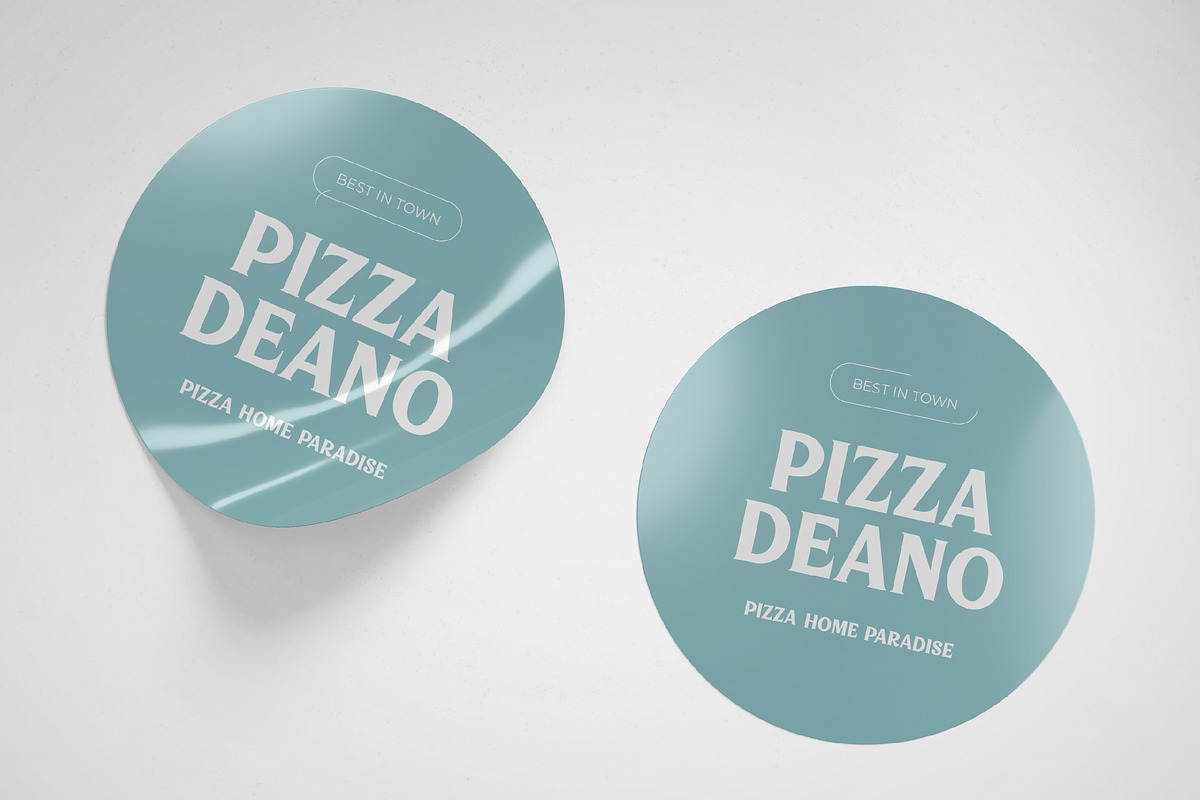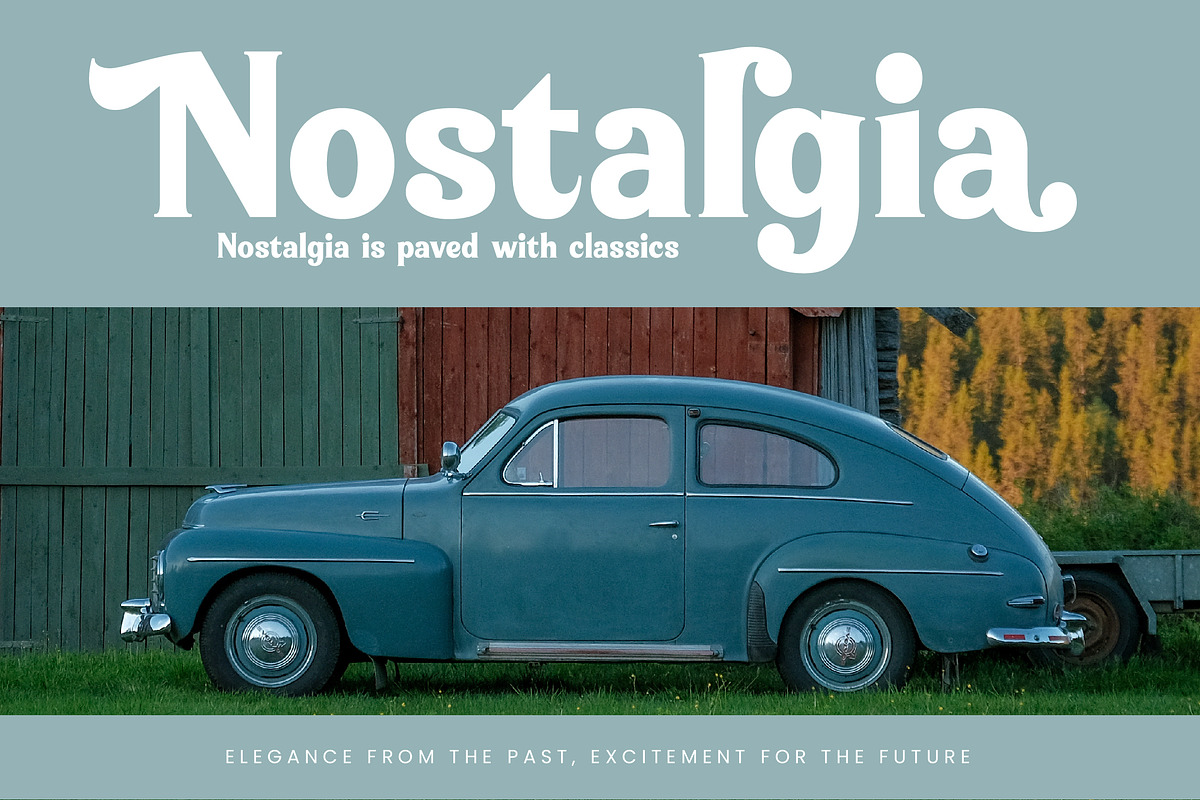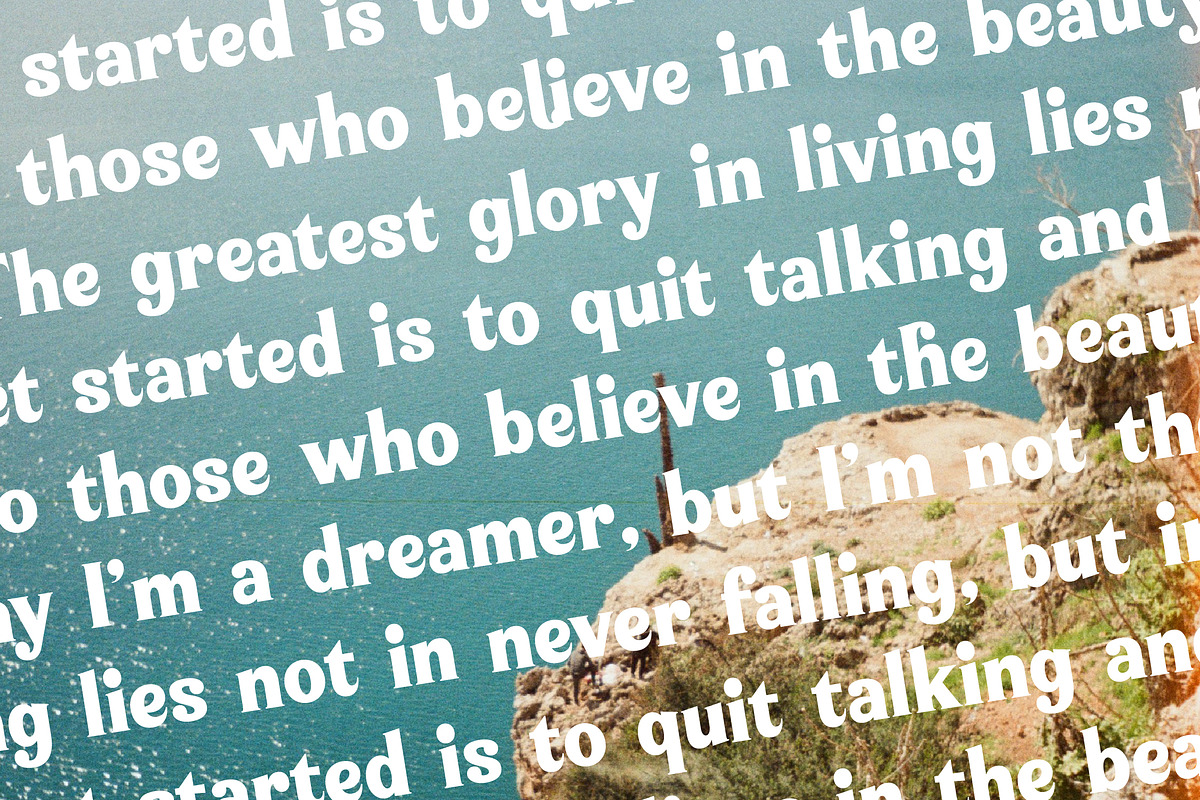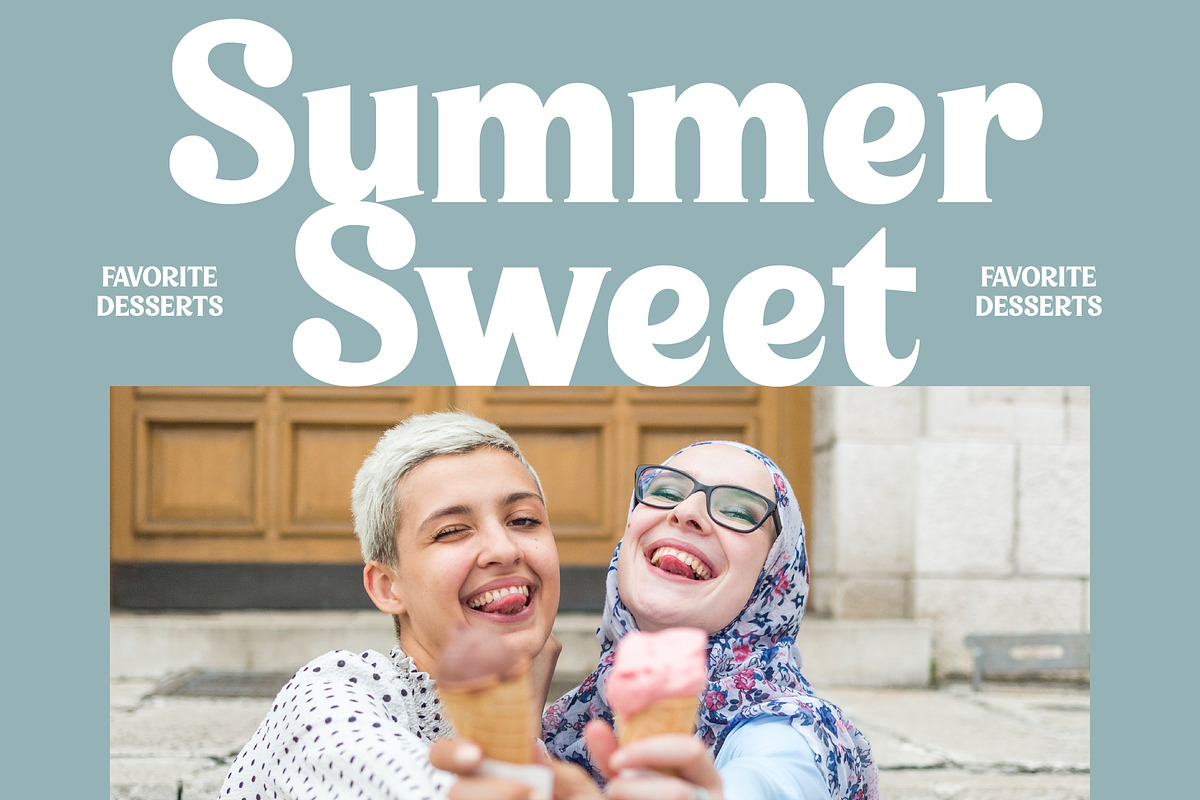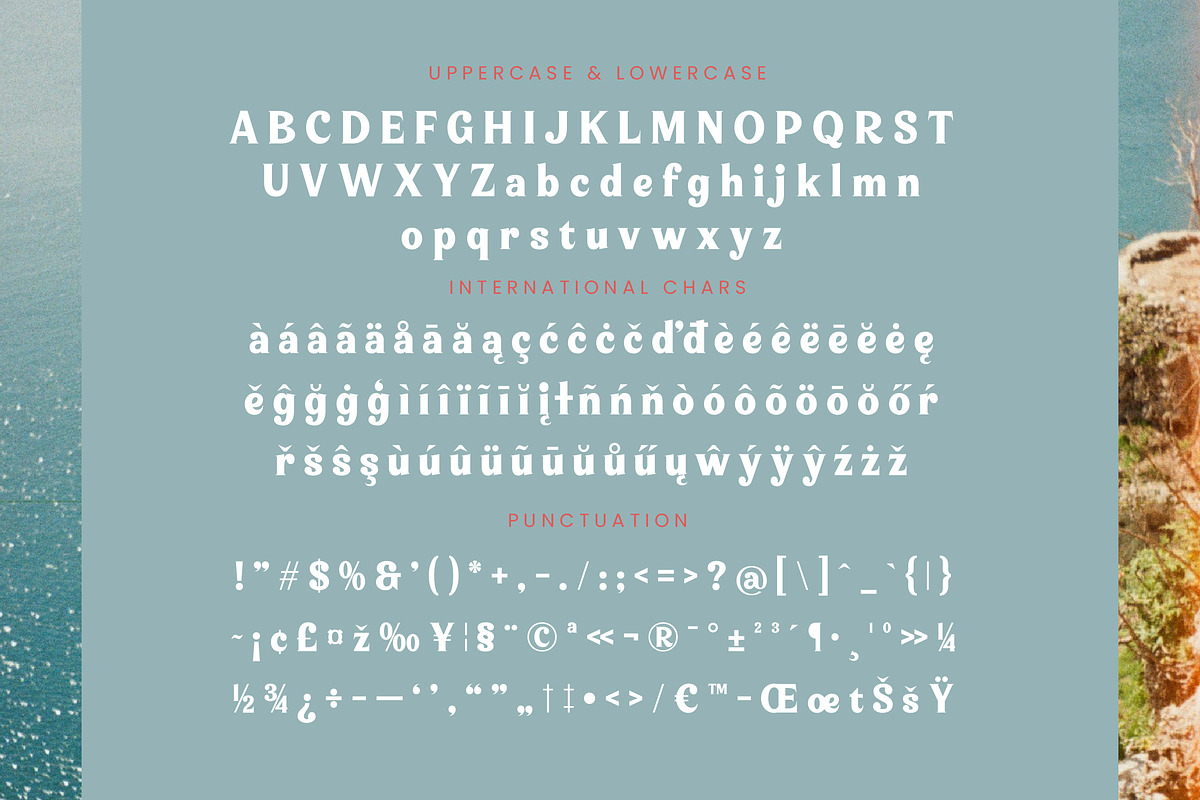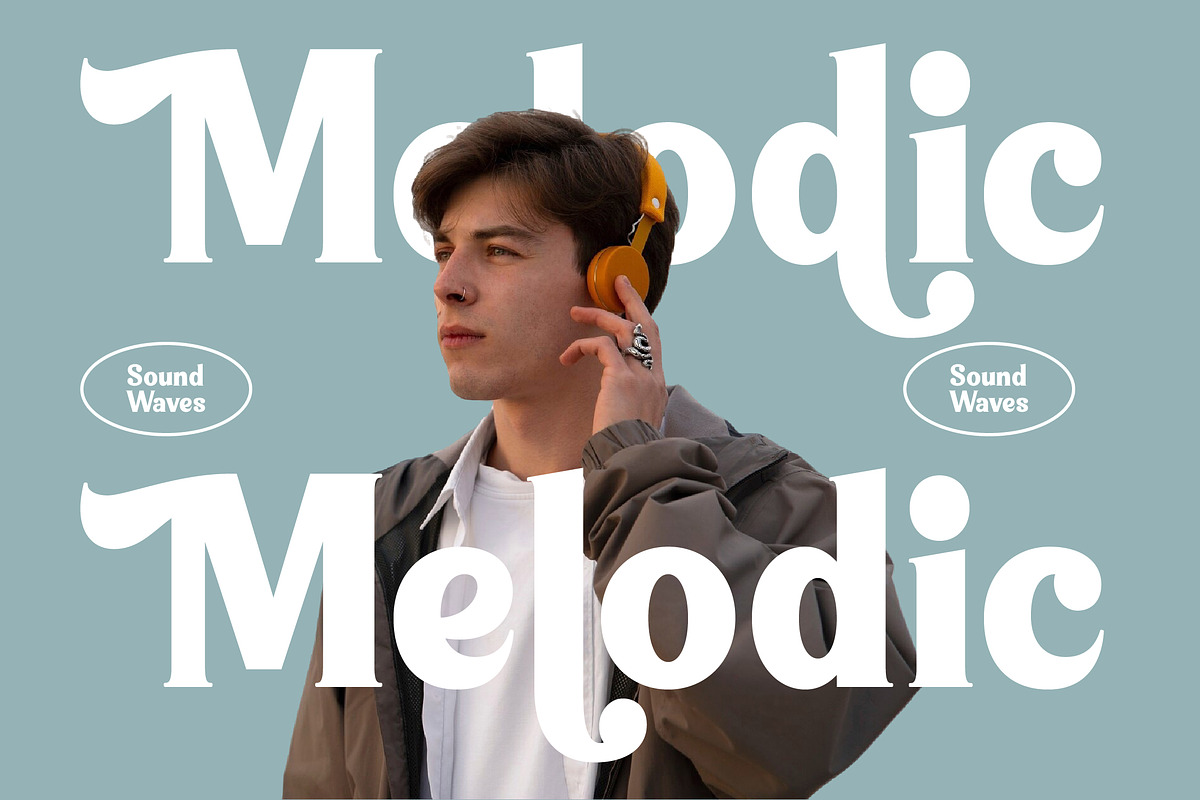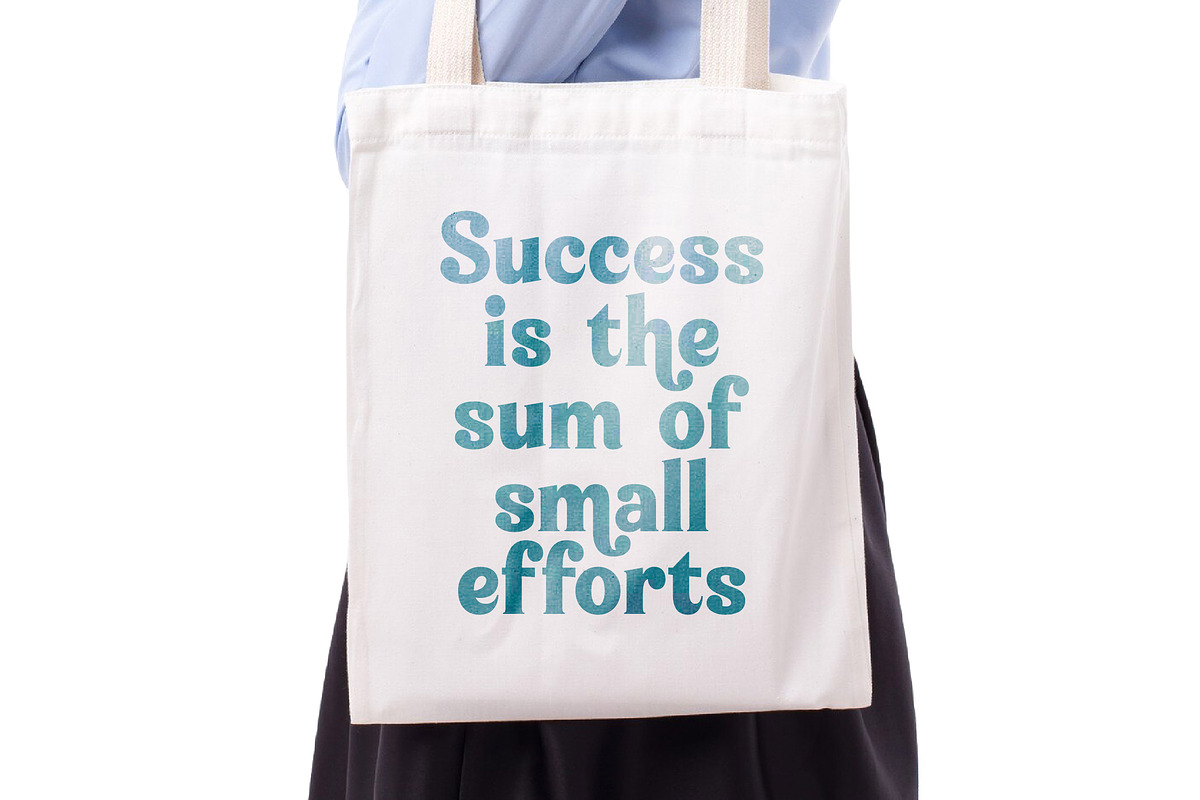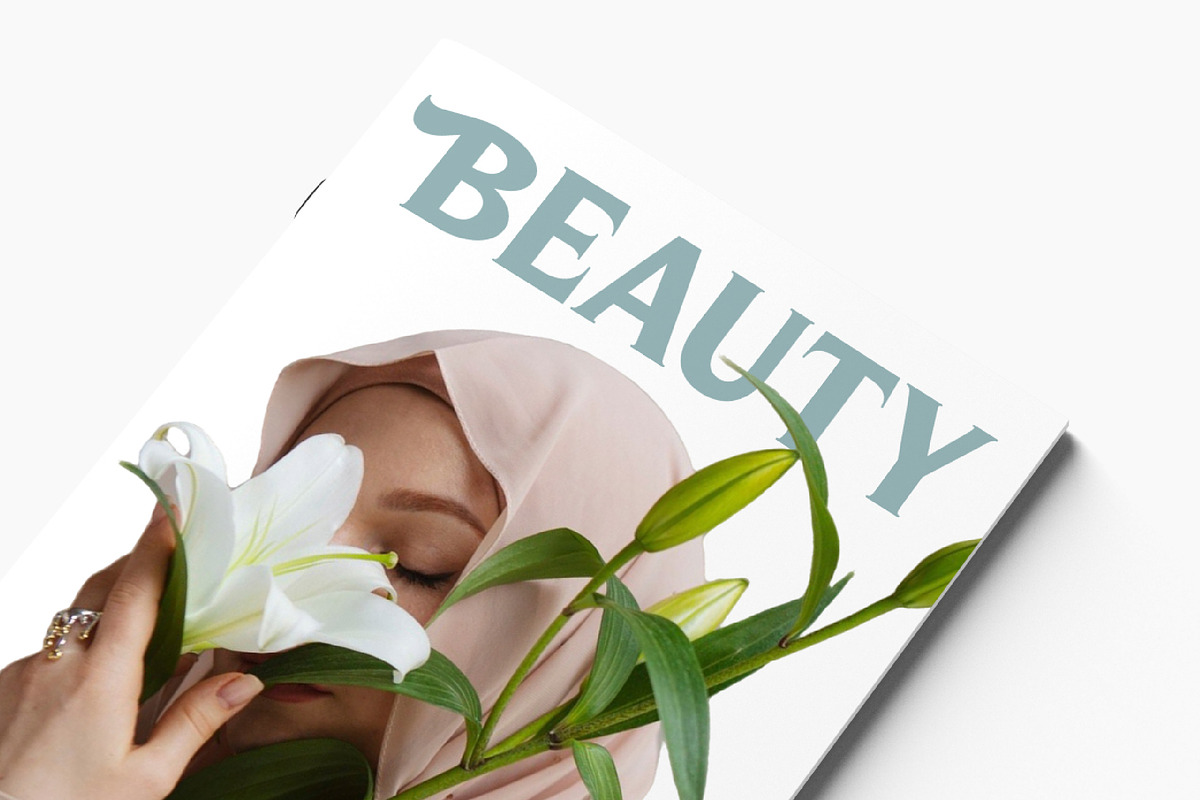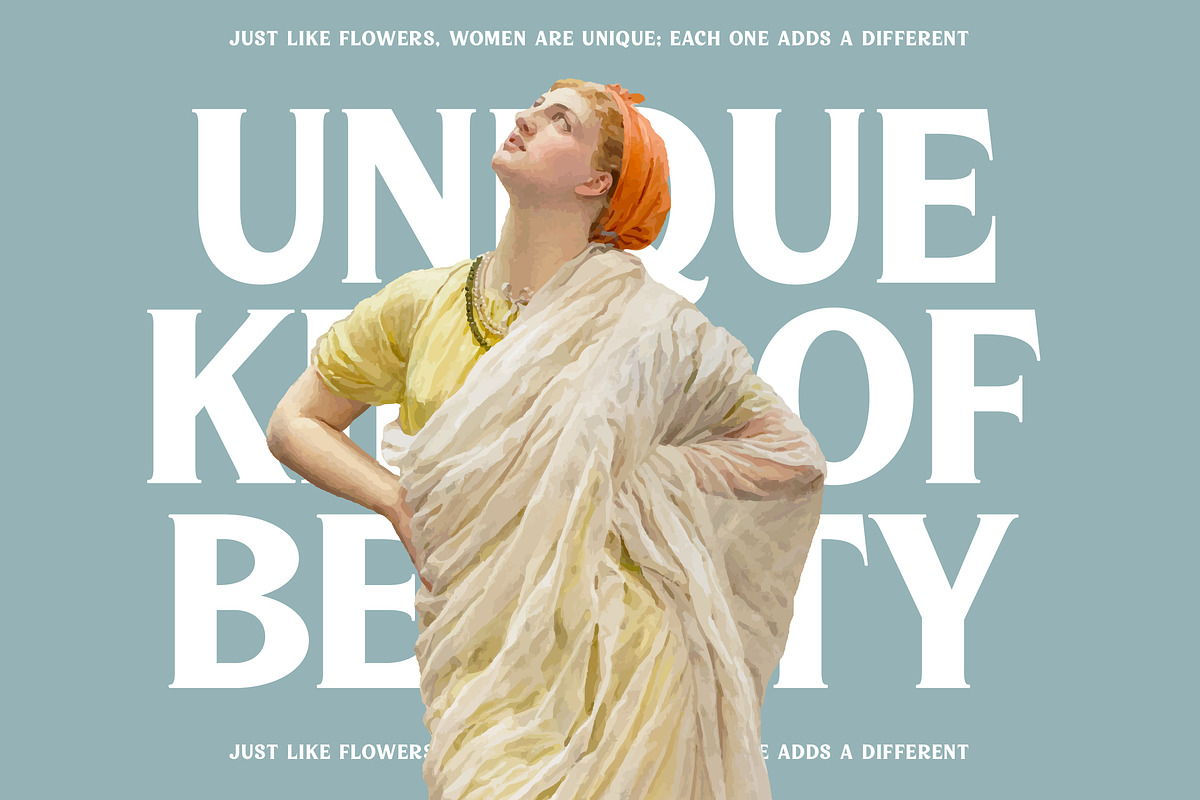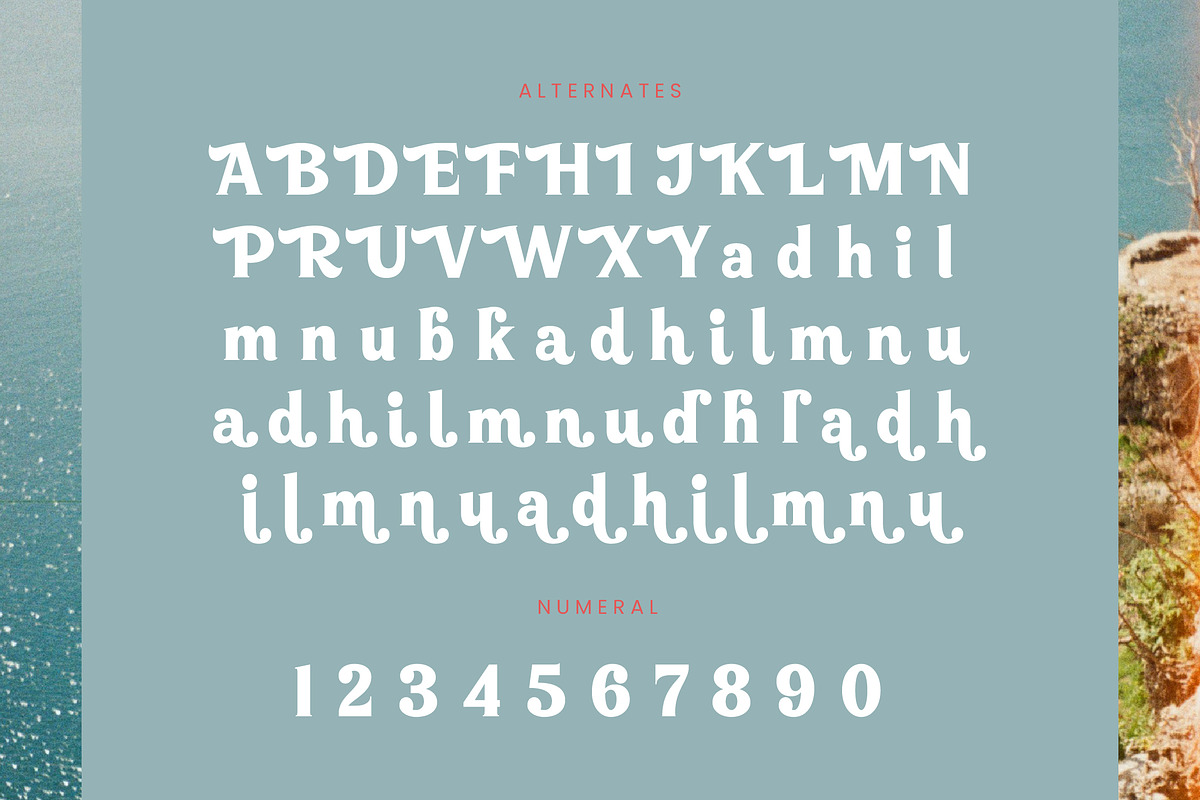
Dream Waves Retro Display Serif
Experience the ethereal beauty of a sun-drenched coastline with Dream Waves, a typeface that captures the fluid motion of the ocean in every stroke. This font invites designers to explore a world where nostalgia meets contemporary elegance through its unique liquid-inspired forms.
Inspired by the hazy, golden hour vistas of 1970s surf culture and the rhythmic ebb and flow of tides, this typeface was crafted to evoke a sense of freedom and wonder. The soft curves and sharp serifs reflect the duality of the sea—tranquil yet powerful, timeless yet ever-changing.
This modern serif display is defined by its striking silhouette and soulful presence, making it the perfect choice for luxury typography projects. With its high-contrast serif design, it delivers an editorial font quality that ensures a massive branding impact for any creative endeavor.
Aligning perfectly with the current modern serif trend, this typeface leans into the demand for editorial display fonts that feel human and expressive. It captures the essence of character-driven typography, offering a refreshing break from sterile digital designs by embracing organic, liquid forms.
From high-end logo design to cohesive branding systems, this font excels in editorial layouts that require a touch of sophistication. It is equally at home in boutique packaging, romantic wedding stationery, and avant-garde fashion campaigns that seek a unique visual voice.
The package is remarkably versatile, featuring 394 glyphs including 64 unique alternates and elegant swashes for custom compositions. It also provides comprehensive multilingual support and international characters to ensure your message reaches a global audience with ease.
- Ligature Alternate 64